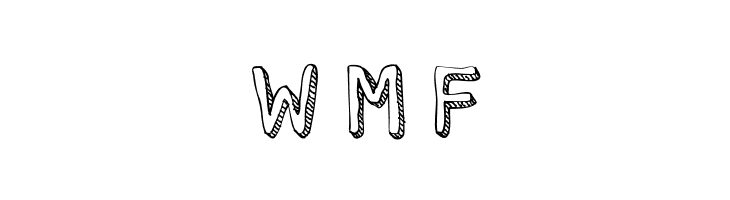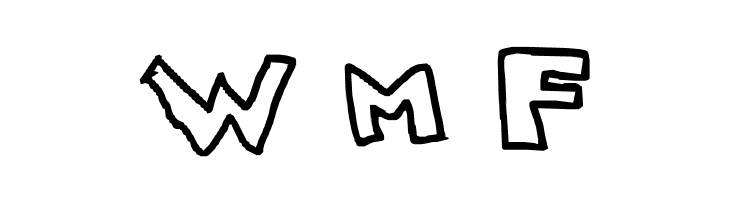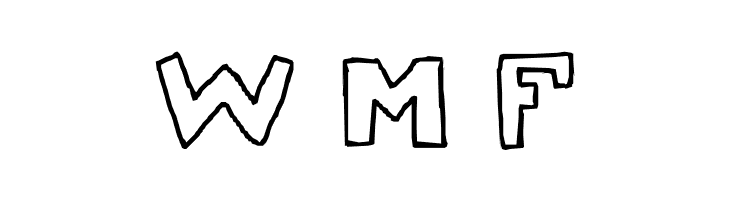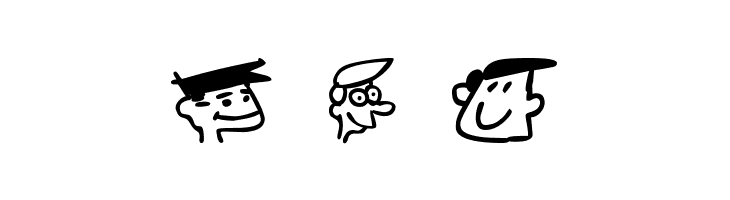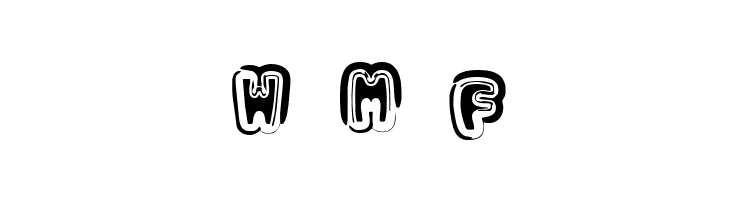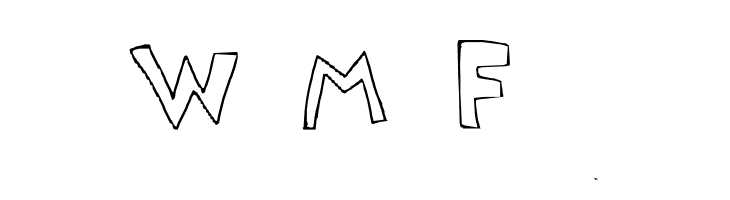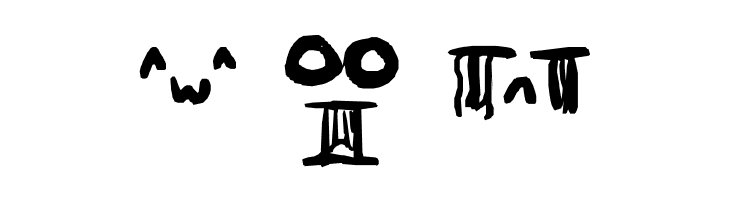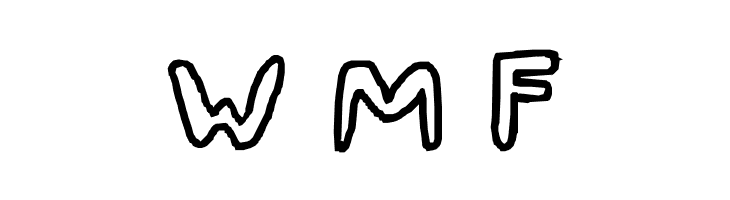
• Unknown Regularity
• NewGodFlow
( Fonts by Des Gomez )
A bold, playful, hand-drawn font with a cartoonish flair.
• RegularfontTwo
( Fonts by Alex Tomlinson - Skyhaven Fonts - shfonts.com )
A bold, playful, hand-drawn font with a three-dimensional look.
• StarFishy
A bold, hand-drawn font with a playful and energetic style.
• DazedAndConfused
( Fonts by Des Gomez )
A playful, bold, and whimsical font with rounded letterforms.
• TightBox
A playful, bold font with characters enclosed in hand-drawn boxes.
• Messed Up Bubble
• Misunderstood
( Fonts by Des Gomez )
A playful, hand-drawn font with a sketch-like, textured appearance.
• BasicHeader
A playful, hand-drawn font with a whimsical and bold style.
• Doughnut Monster__G
( Fonts by Goma Shin - Shintarou Nakayama www.geocities.jp/gomarice_font/ )
A bold, playful font with thick, rounded characters ideal for fun and whimsical designs.